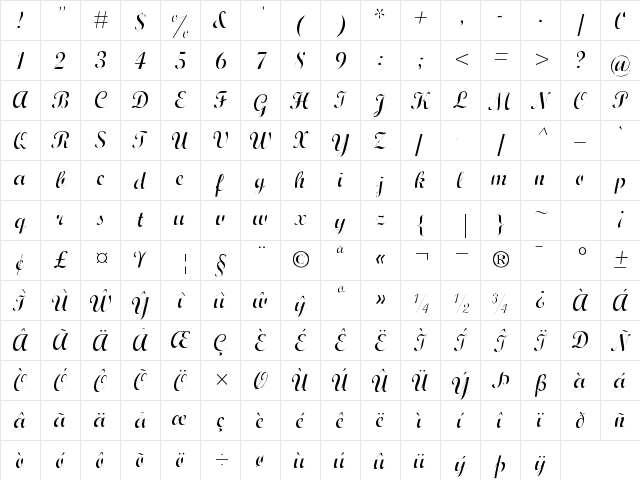
Wrexham Script Light Light Font Preview
Design Context for Wrexham Script Light Typeface
Wrexham Script Light flows with the natural rhythm of handwritten lettering, making it ideal for designs that call for warmth and personal expression. Its slender proportions lend an understated elegance to any composition.
Font Pairing: Combine Wrexham Script Light with a simple geometric sans for maximum contrast — the tension between flowing curves and clean structure is a classic typographic pairing.
Pro Tip: Pair Wrexham Script Light with a clean sans-serif for supporting text. The contrast between fluid script and geometric structure creates an elegant typographic hierarchy.